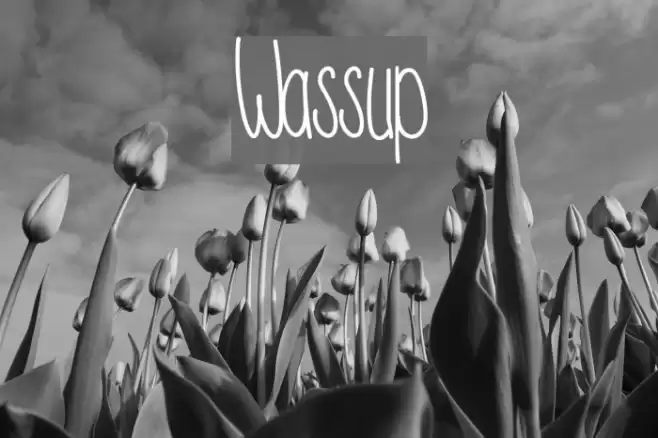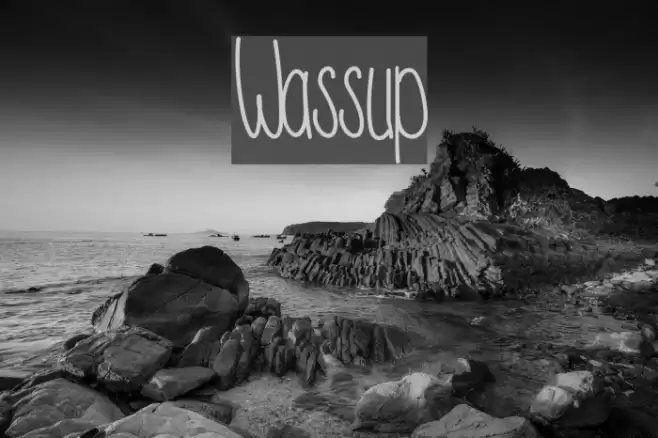
Wassup Font
Wassup Description
This font features a playful and casual handwritten style, characterized by tall, narrow letters with a slight slant. The strokes are consistent in thickness, giving it a uniform appearance. The uppercase letters are slightly taller than the lowercase, and the overall look is informal and friendly. The numbers and special characters maintain the same playful aesthetic, making it suitable for creative and fun projects. The font's simplicity and legibility make it versatile for various uses.
A playful, handwritten font with tall, narrow letters and consistent stroke thickness from Uncategorized fonts.
- Proposed Projects: Ideal for children's books, greeting cards, casual branding, and playful social media graphics.
- Overall Style: Casual
- Use Case: Headlines, Logos, Informal Text